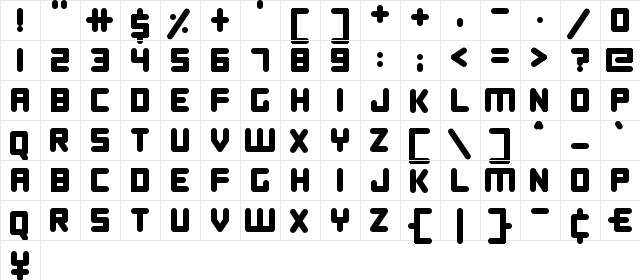
Digital Dreamers Regular
| Designer | Darrell Flood |
Design Context for Digital Dreamers Typeface
Digital Dreamers has a distinctly futuristic character, with geometric precision and clean angles that feel at home in technology, gaming, and sci-fi contexts.
Pro Tip: Use Digital Dreamers in combination with a neutral sans for body text. Let it define the brand voice in headlines while keeping reading comfortable elsewhere.